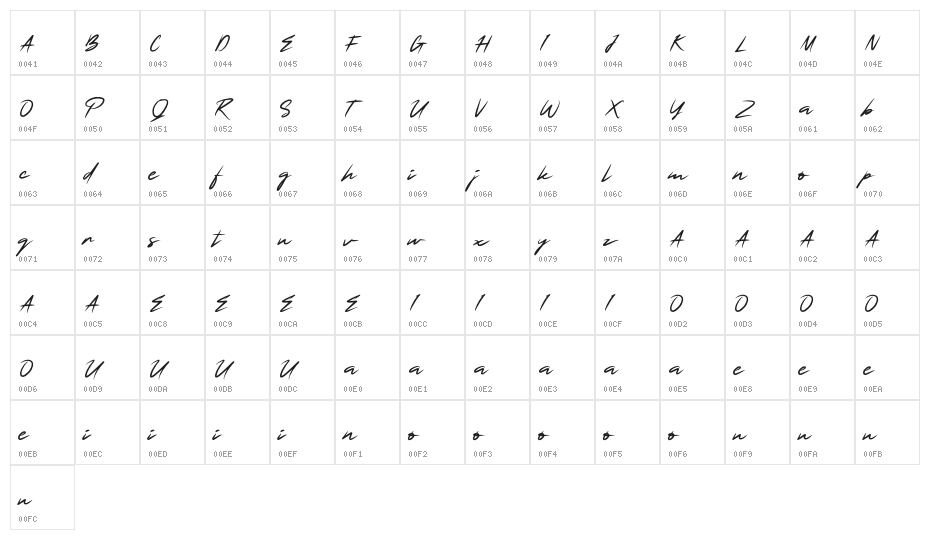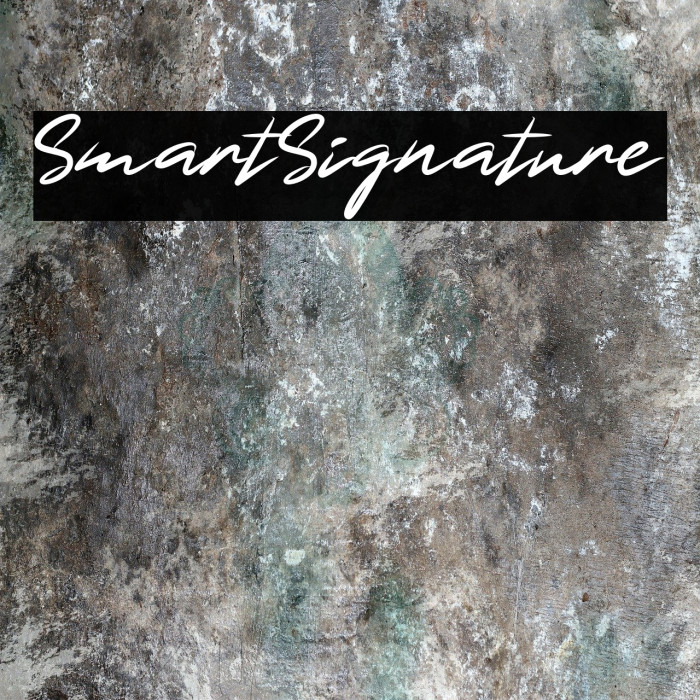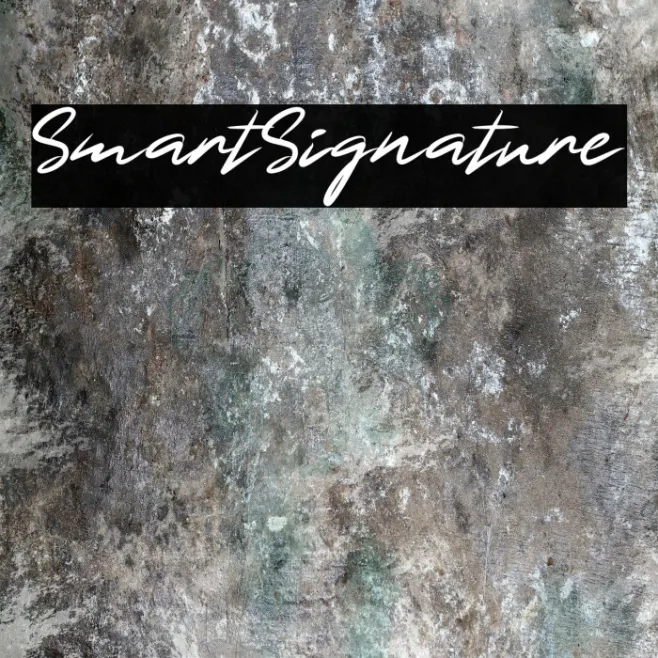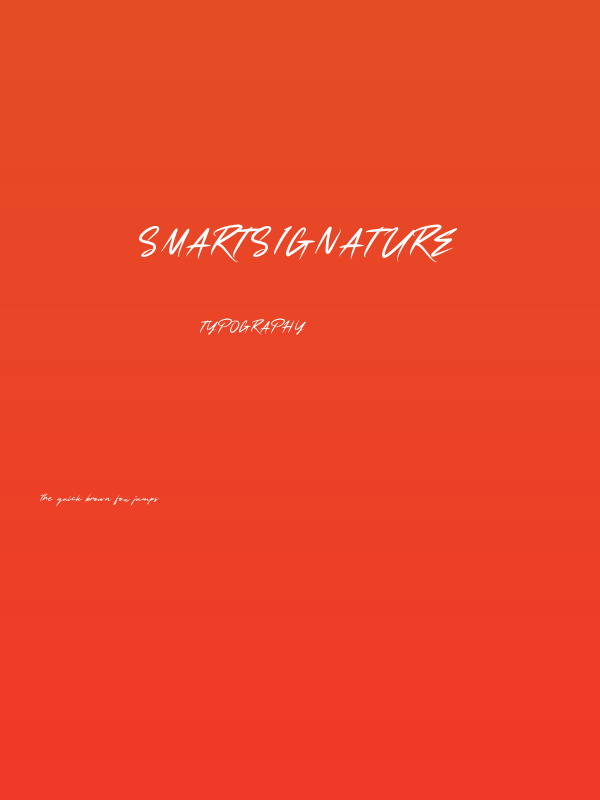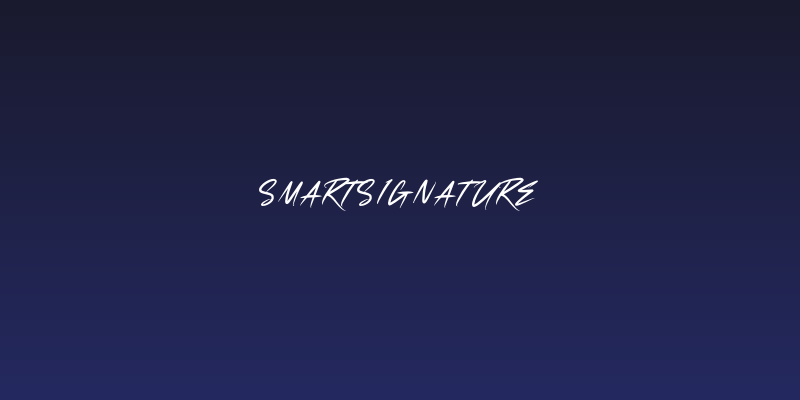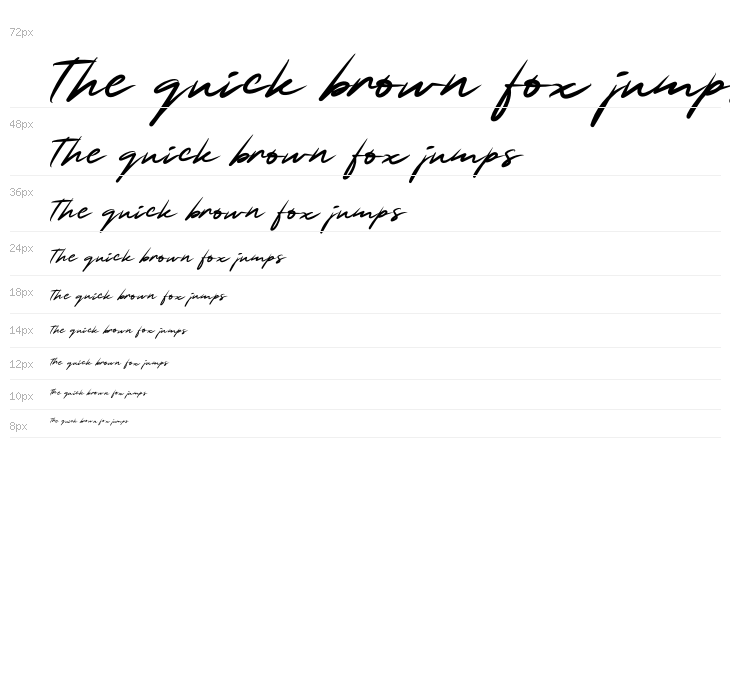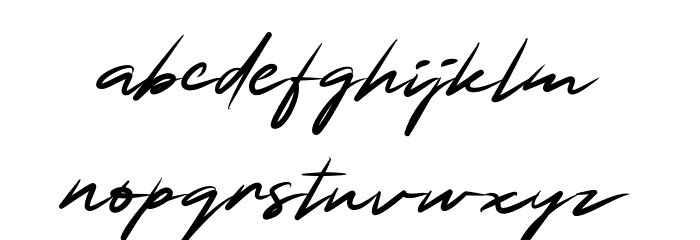
SmartSignature Font
SmartSignature Description
This font exudes a dynamic and energetic feel, characterized by its cursive, handwritten style. The letters are fluid and slightly slanted, giving an impression of speed and motion. The uppercase letters are bold and prominent, while the lowercase letters maintain a consistent flow. The strokes are smooth with moderate contrast, adding to the legibility and aesthetic appeal. This font is ideal for projects that require a personal touch or a sense of elegance and sophistication.
| Proposed Projects | Ideal for personal branding, invitations, greeting cards, and creative projects that require a touch of elegance. |